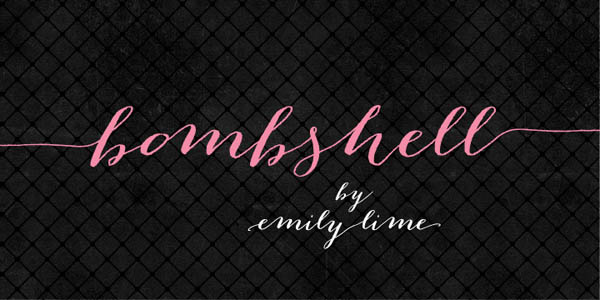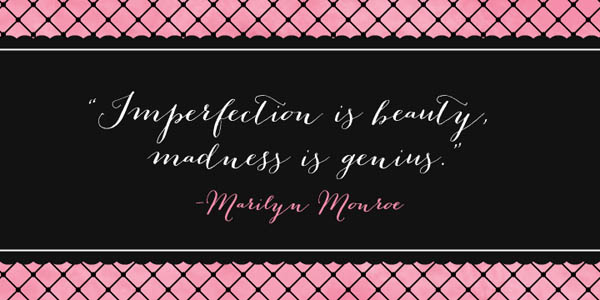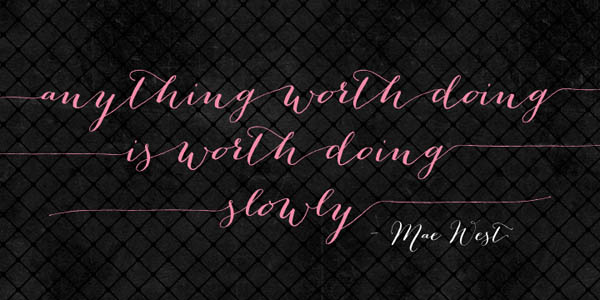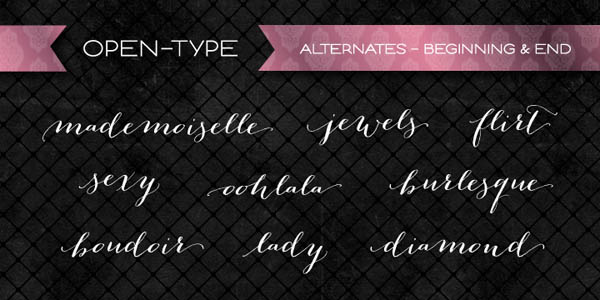
Bombshell Pro, a calligraphy typeface with a handwritten style.
Bombshell Pro was designed in 2012 by Emily Conners (Font Foundry: Emily Lime). This hand-calligraphy script typeface includes long connections between letters, which is very helpful to create beautiful headlines. The OpenType version consists of more than 800 glyphs including initial and terminal letters, several alternates, roman numerals, and “run-on” letter connections. Bombshell’s deliberate imperfection provides an authentic look. The font is available as Webfont and Desktop Font (Open Type and True Type). With Bombshell Pro you are able to create super realistic hand-calligraphy designs.